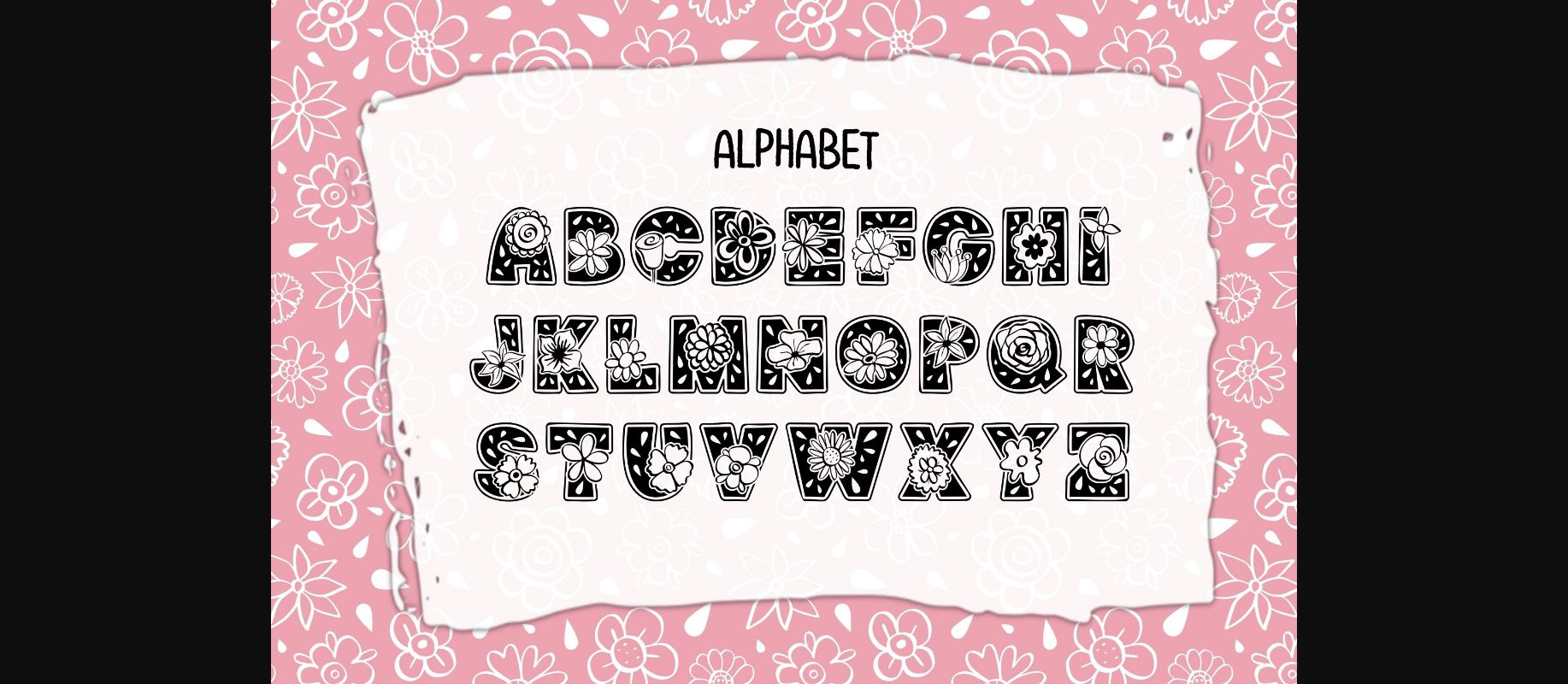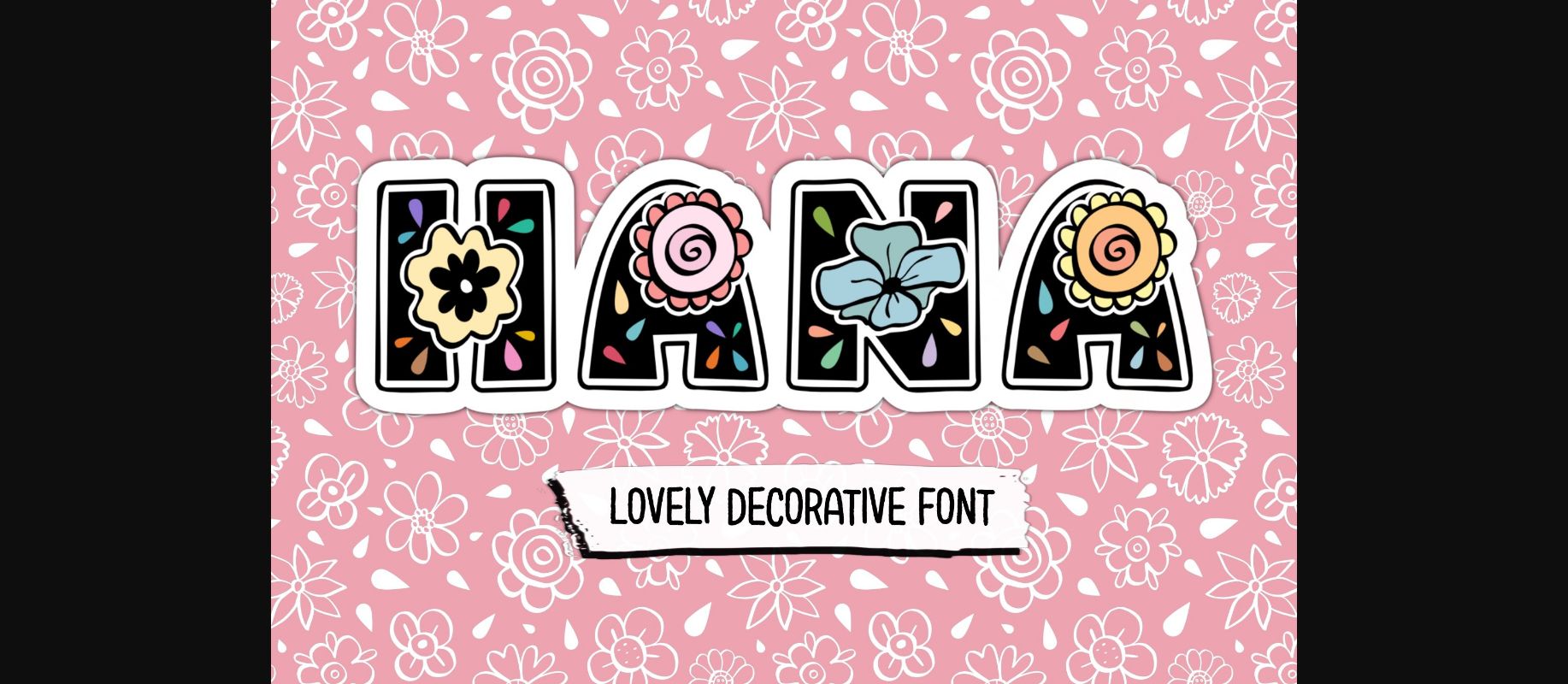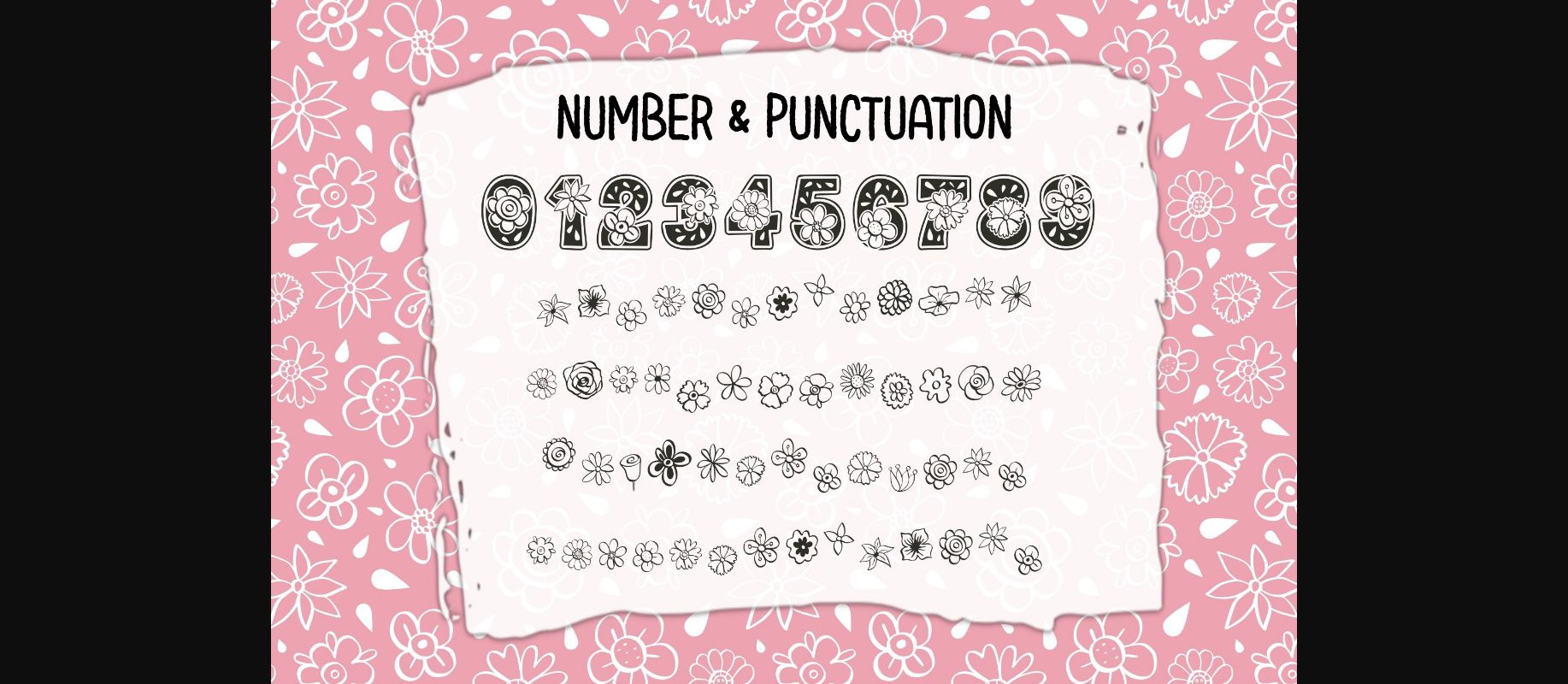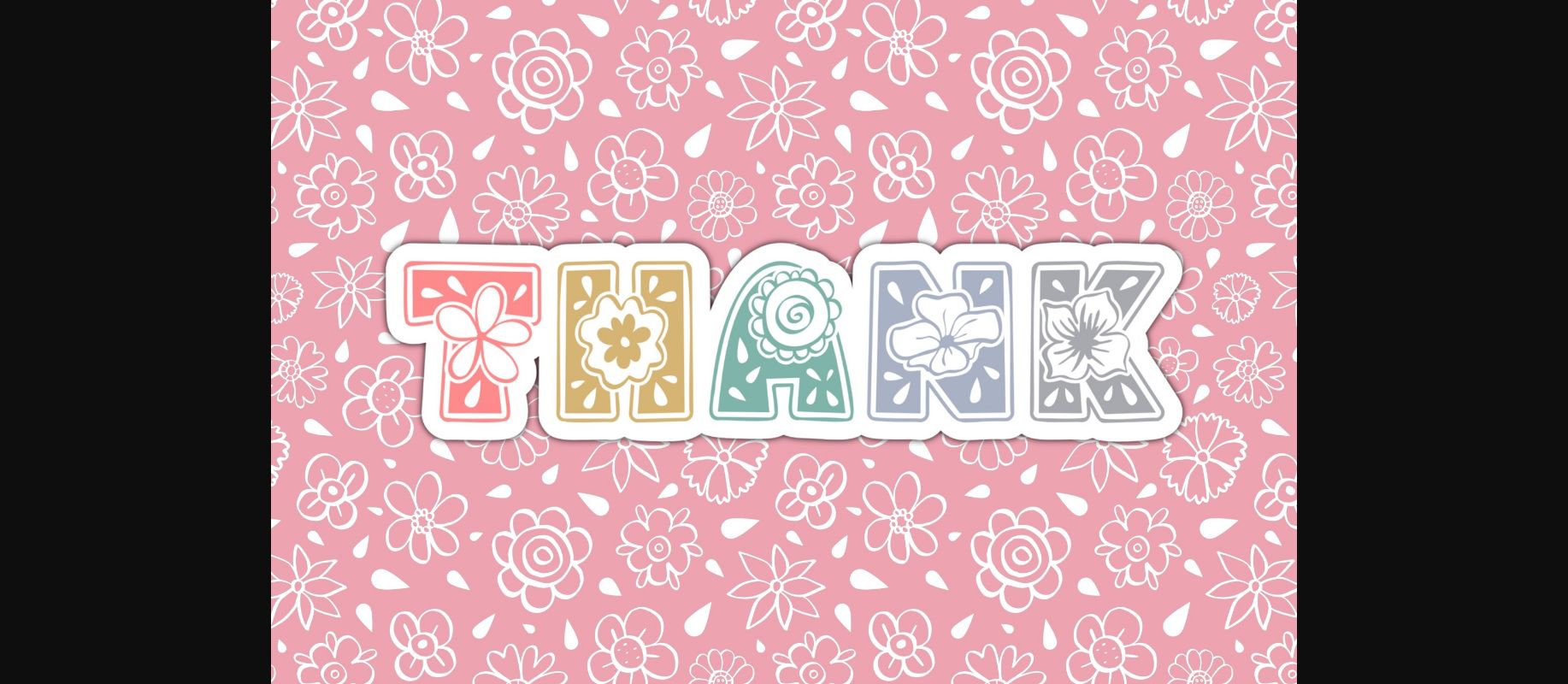
HomeDecorative FontsHana Font Decorative Fonts Hana Font FacebookXPinterestWhatsApp 1 of 6 ... Hana Font Poster 2... Hana Font Poster 3... Hana Font Poster 4... Hana Font Poster 5... Hana Font Poster 6... About Hana Font Hana is a lovely decorative font. This font is the perfect fit for all of your logos, branding, social media, crafty DIY projects, and much more! DOWNLOAD NOW People also explored Schönheit Font Alberina Font Yellowthings Font Hey Lovely Hearts Mystical Woods Font Patternline Dingbat Font Glenmore Font Sign Card JNL Font Linimasa Font 302 0 TagsHanaHana Font Previous articleFlowers Corner FontNext articleAutism Font LEAVE A REPLY Cancel reply Comment: Please enter your comment! Name:* Please enter your name here Email:* You have entered an incorrect email address! Please enter your email address here Website: Save my name, email, and website in this browser for the next time I comment. Personal Use Free Castina Personal Use Free Read more about this font Burnstown Dam Personal Use Free Read more about this font Pasile Personal Use Free Read more about this font Arnitta Callina Personal Use Free Read more about this font BLOG How to Cut Any Font on Cricut: Convert a Font to SVG (Free) Turn any font into a clean SVG so it cuts crisp on Cricut - a quick 3-step workflow using a free font-to-SVG tool. Where to Buy American Fonts Online in 2024 Top 10 Handwritten Fonts That Elevate Your Designs 5 Fonts That Will Dominate Design Trends in 2026